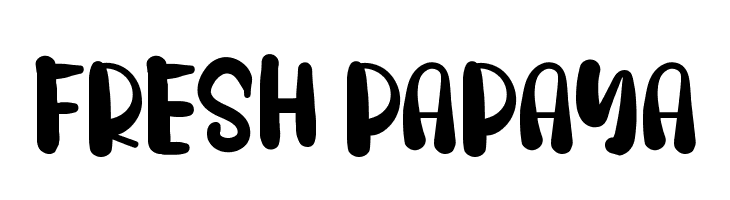
( Fonts by K_IN Studio )
A bold, playful handwritten font with thick strokes and rounded edges.
( Fonts by Achmad Yani )
A bold, playful font with rounded edges and a bubbly, retro-modern style.
( Fonts by Kurnia Setyadi )
A bold, playful font with thick, uneven strokes and a whimsical, cartoonish style.
( Fonts by Zeenesia Studio )
A bold, playful font with a hand-drawn, whimsical style.
A bold, textured font with a hand-crafted, impactful style.
A tall, slender, and whimsical font with a hand-drawn feel.
An elegant, flowing script font with smooth, connected letters and subtle flourishes.
A bold, playful handwritten font with a casual and friendly style.
( Fonts by Yumna Family )
A playful, bold handwritten font with a casual and friendly style.
A playful, bold font with rounded, thick strokes and a whimsical touch.